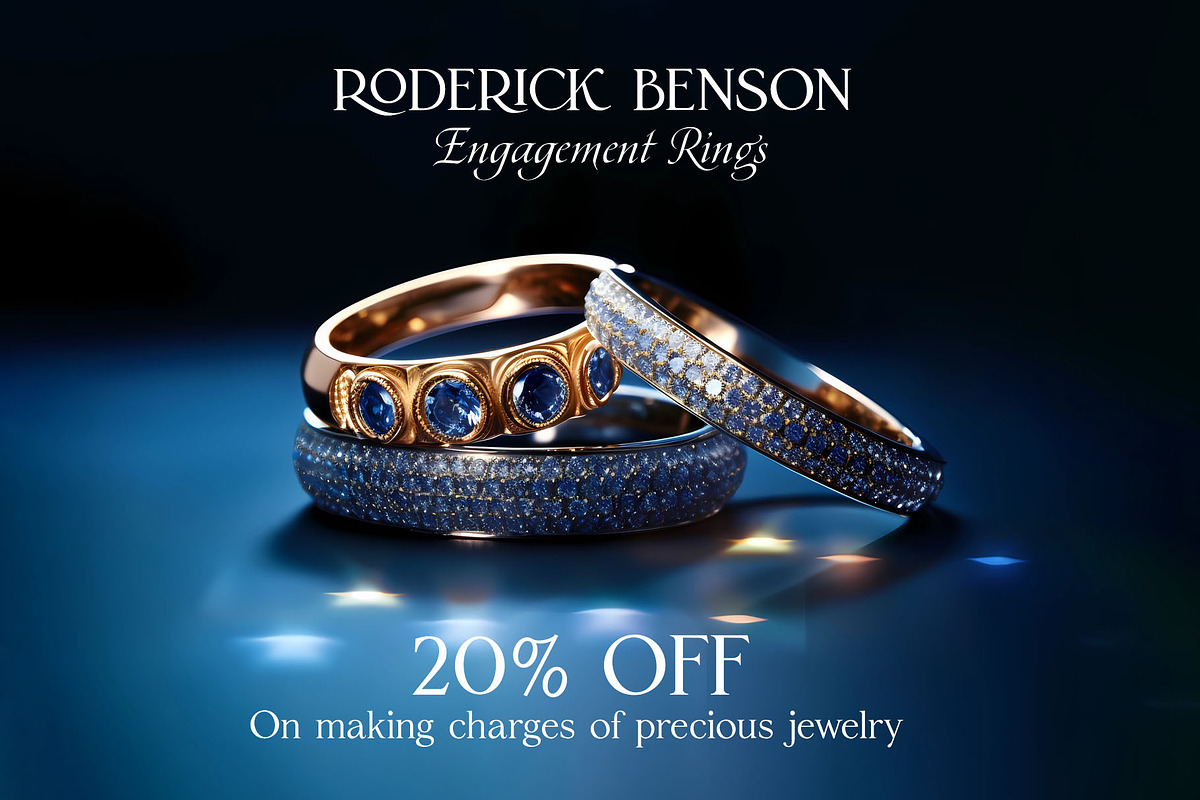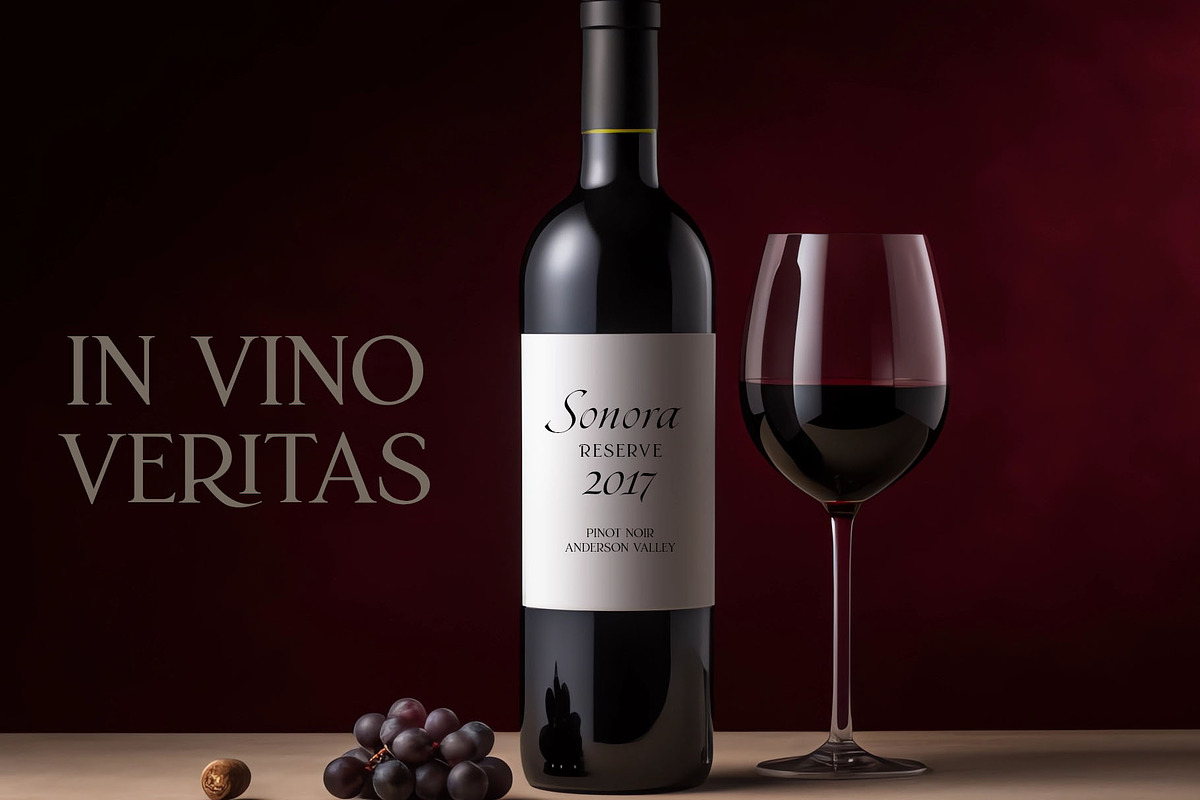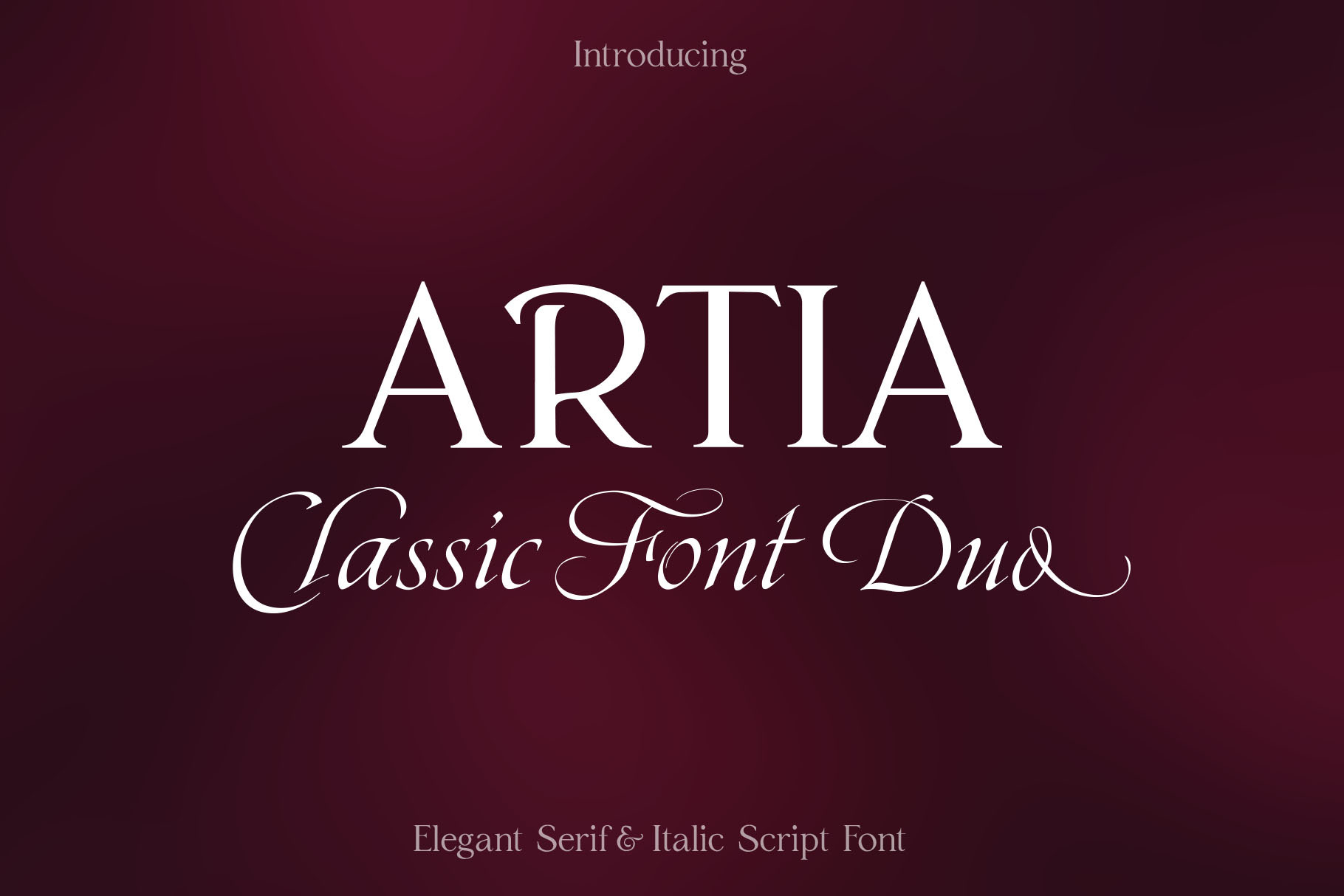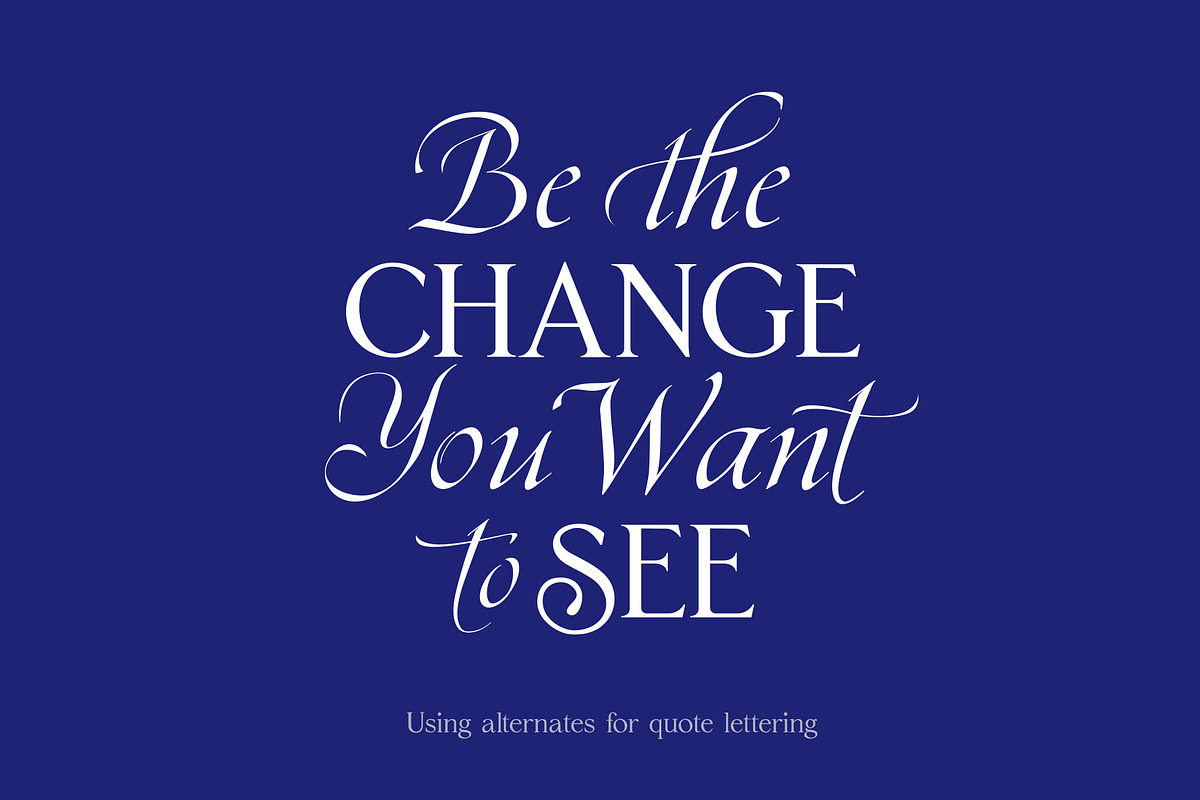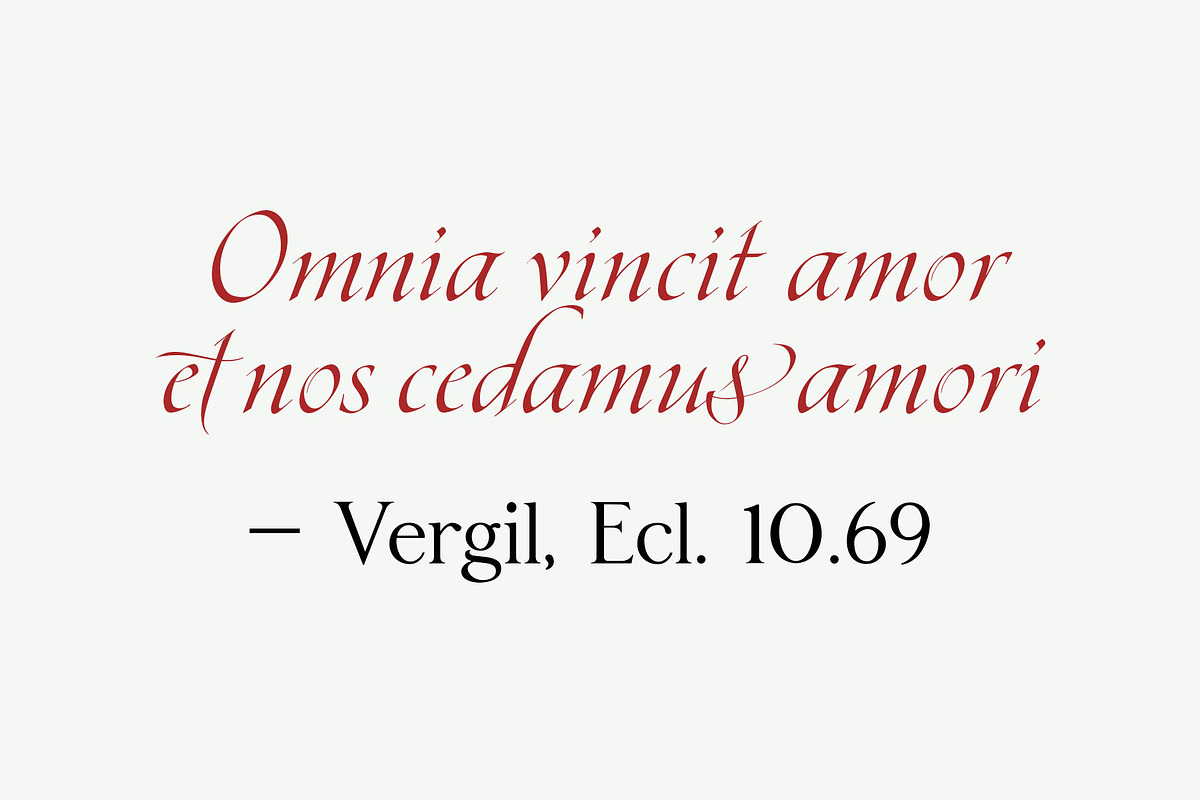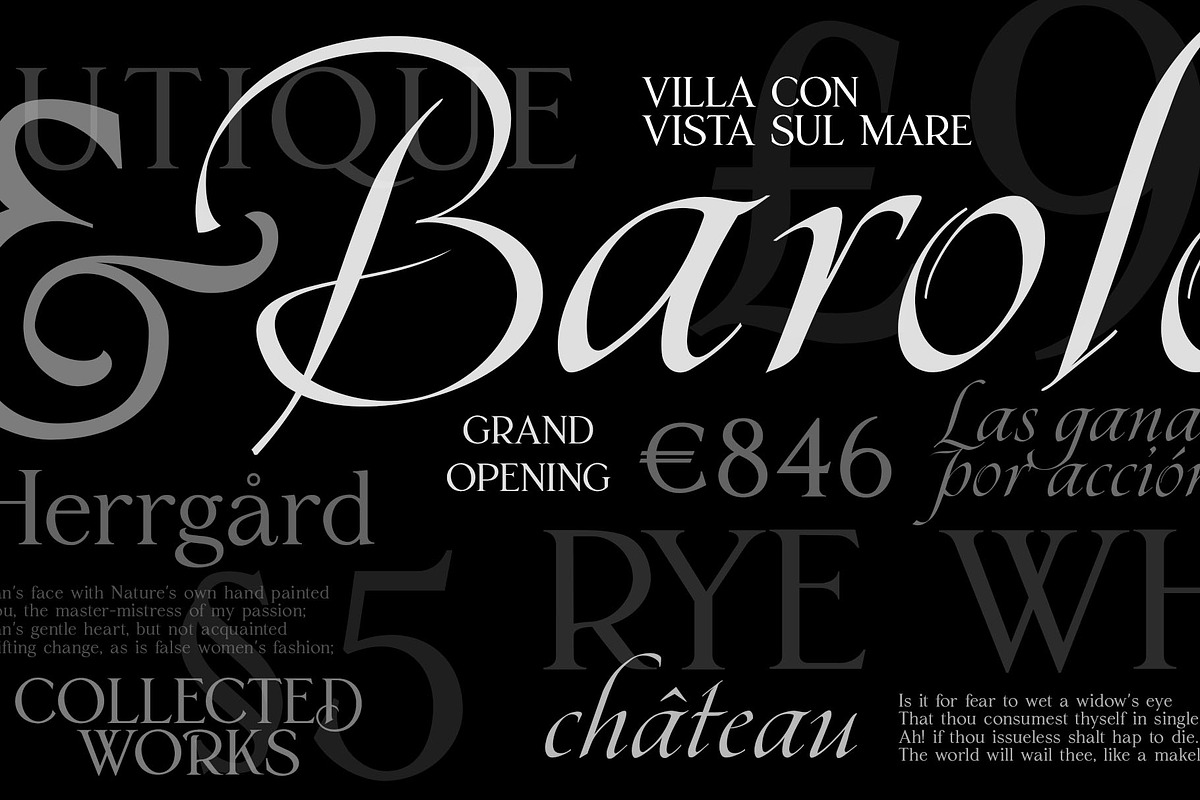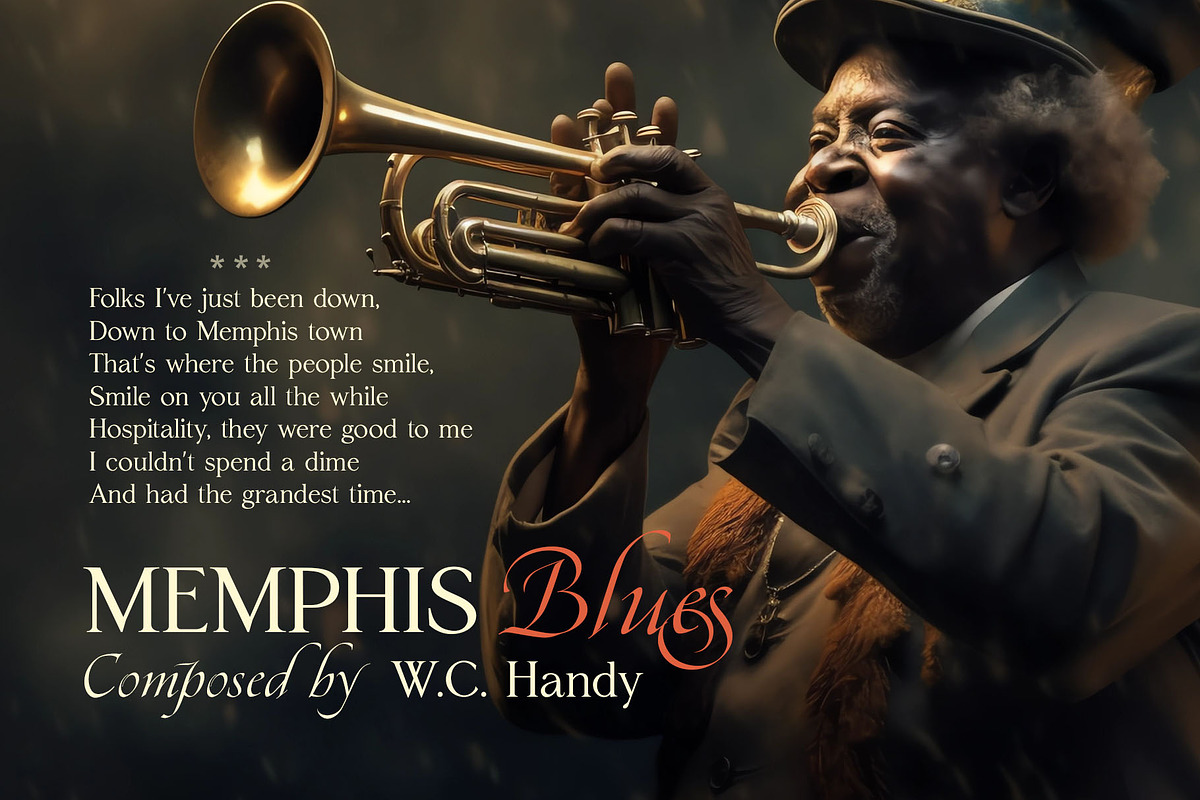
Artia Font Duo
Introducing my exquisite font duo, a perfect blend of aesthetic beauty and timeless elegance. This collection showcases a harmonious combination of Italic calligraphy and chic serif, creating a classy and classic appeal. The clean and contemporary lines effortlessly capture a corporate essence, making it an ideal choice for high-end brands.
The serif option within the duo provides high contrast and readability, while the Italic font carries a touch of handwritten calligraphy, allowing your text to stand out and make a statement. Both fonts have some ligatures and alternate glyphs for the most commonly used letters and support a wide range of European languages.
Whether you're creating invitations for a special occasion or developing a brand identity for a luxury venture, this font duo is the epitome of refined style and sophistication. Elevate your designs with this font duo and let its beauty speak for itself.